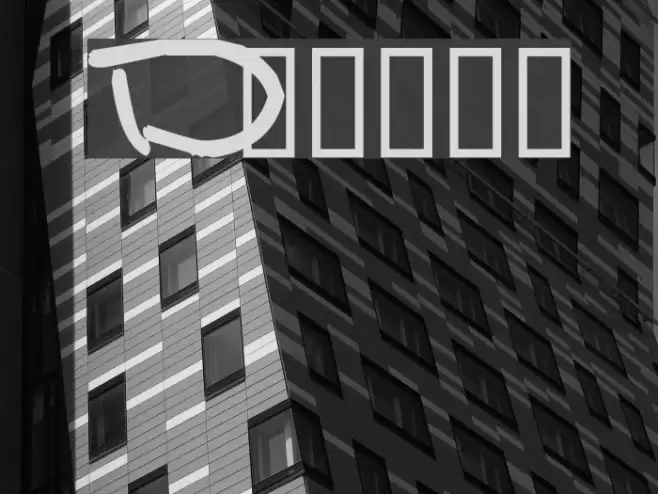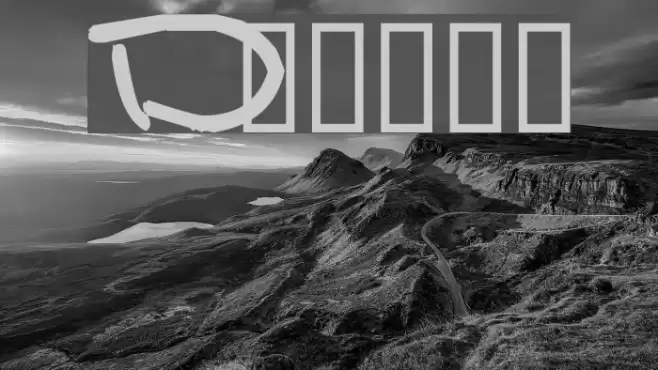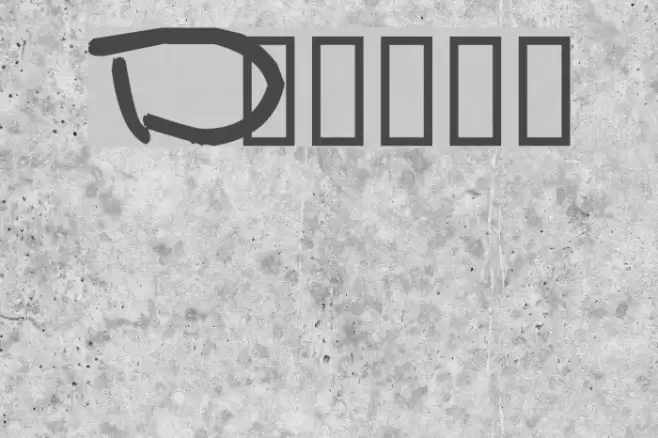
Donald Font
Donald Description
This font features a dynamic and energetic style, characterized by its bold, brush-like strokes that convey a sense of movement and spontaneity. The uppercase letters are particularly expressive, with varying stroke widths and a slightly irregular baseline that adds to the hand-drawn aesthetic. The lowercase letters maintain this lively quality, though they are not visible in the image. The overall appearance is informal and artistic, making it suitable for creative and expressive design projects. The font's unique style is ideal for capturing attention and conveying a sense of individuality.
| Proposed Projects | Ideal for artistic projects, branding, posters, and any design requiring a personal touch. |